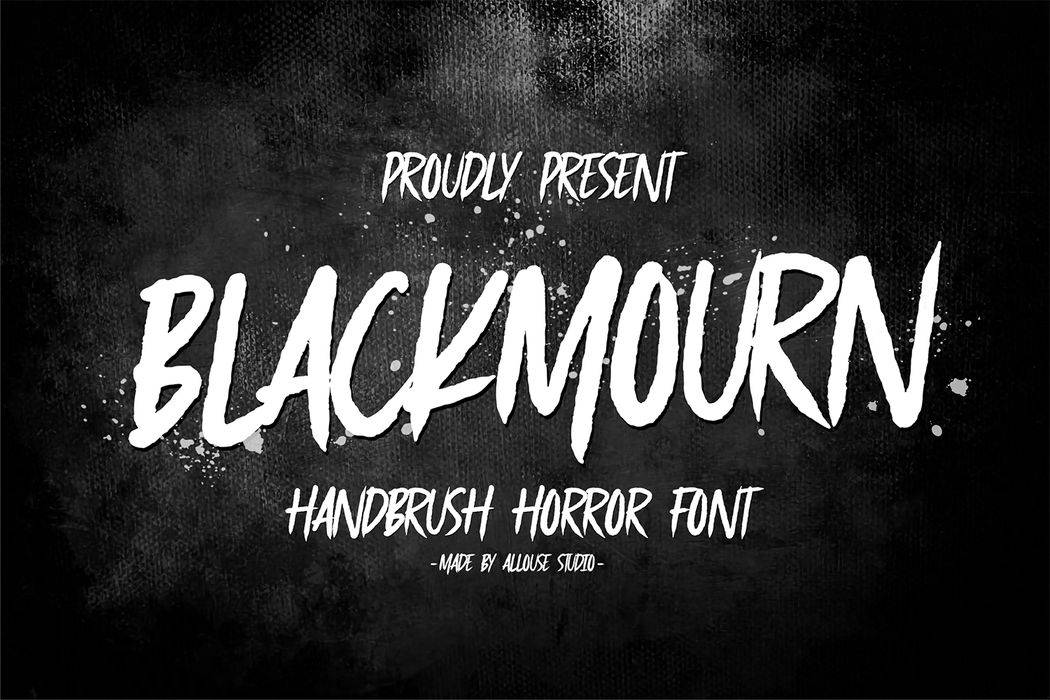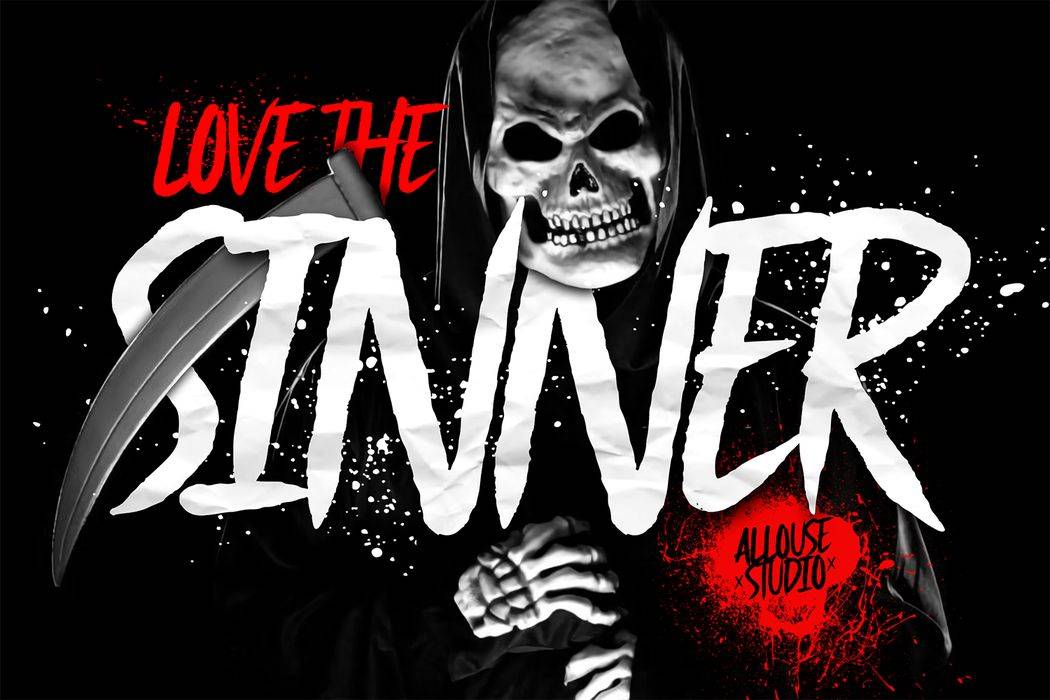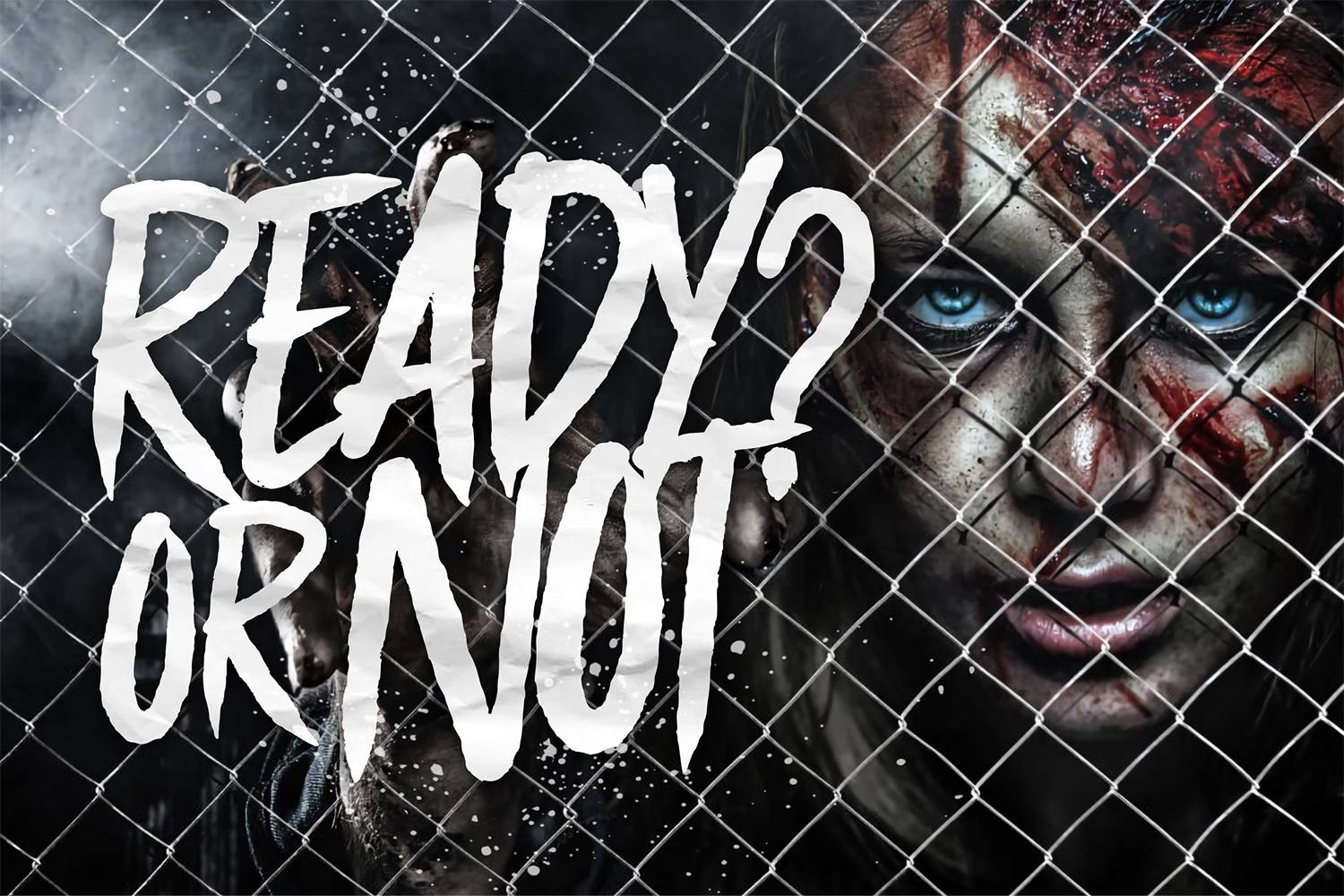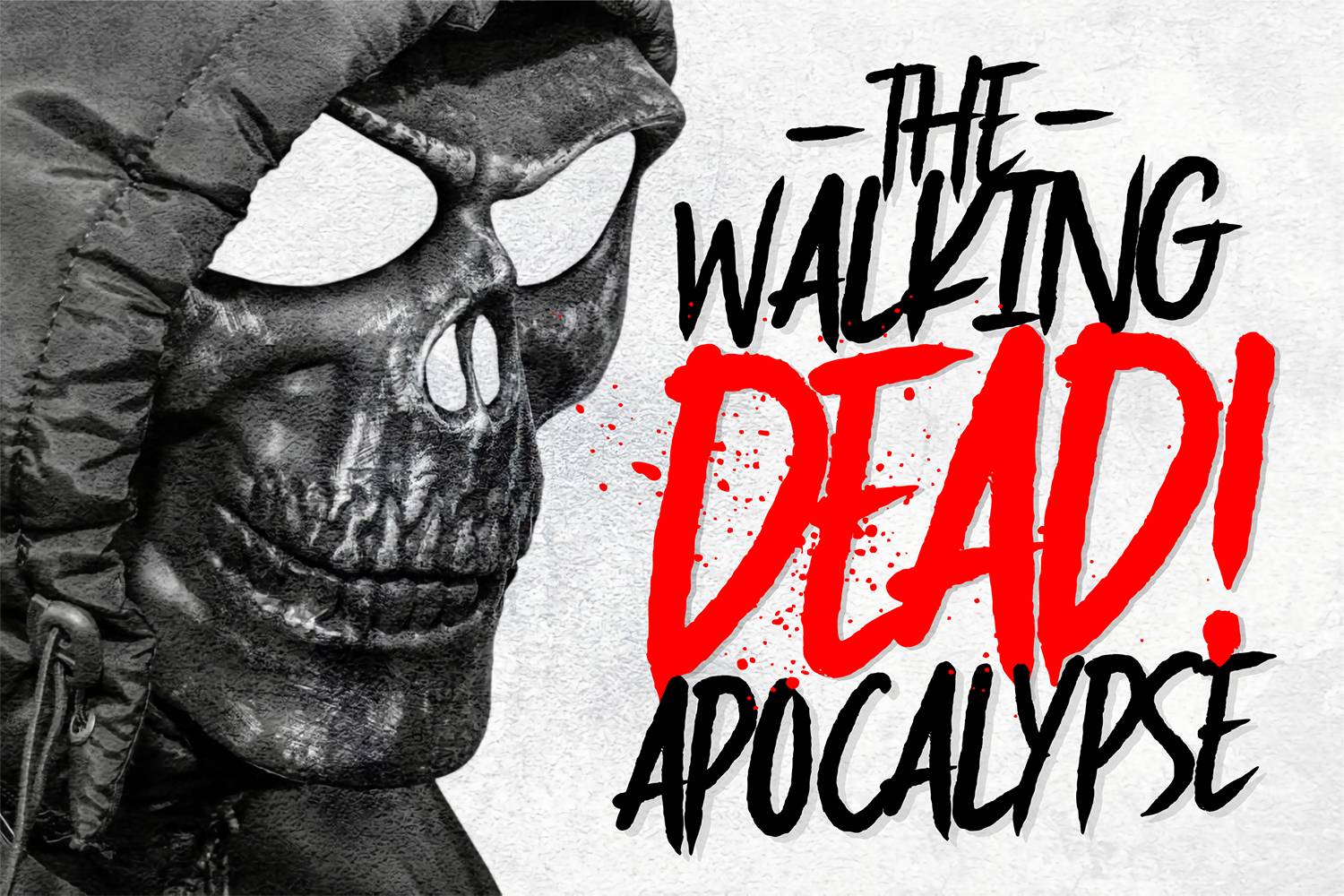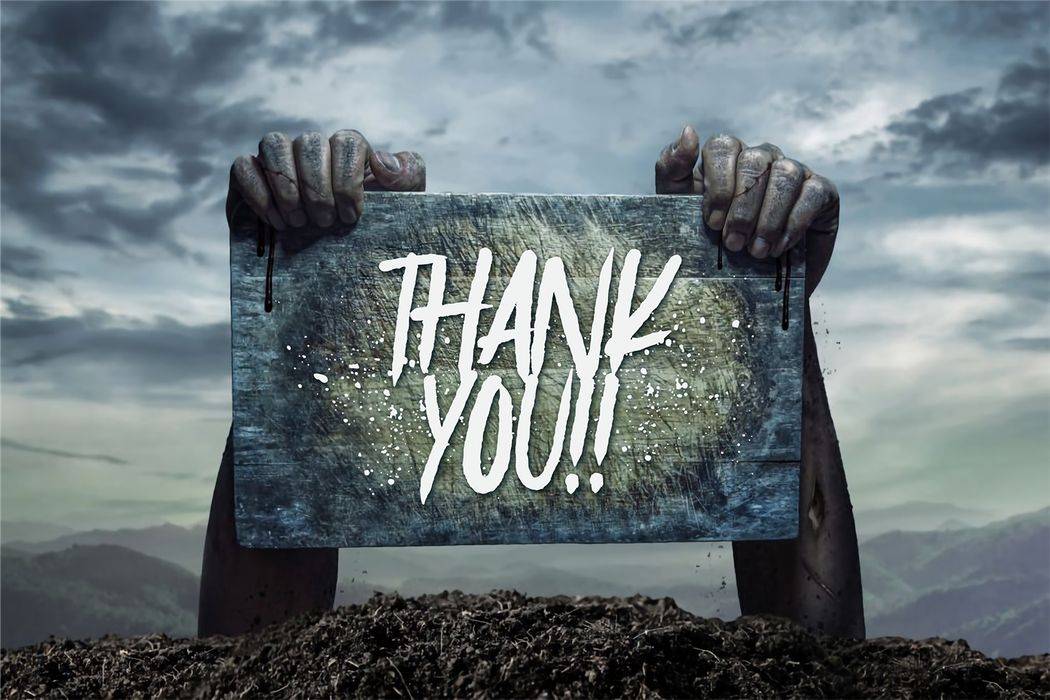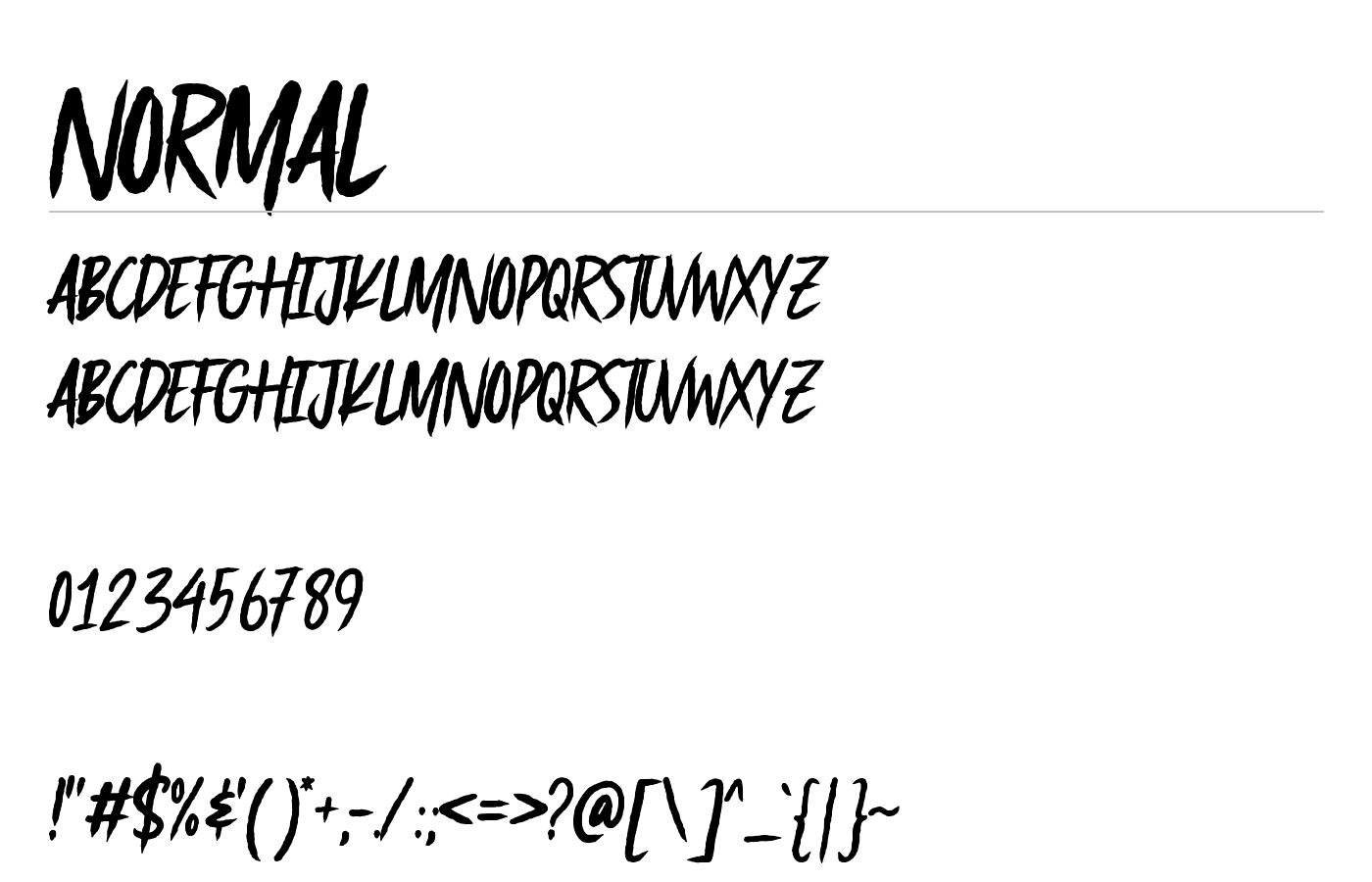
Blackmourn is a bold, expressive handwritten font that delivers an energetic and somewhat edgy appearance. With its irregular strokes and rough brush-like texture, it feels dynamic and raw, perfect for designs seeking a rebellious or creative vibe. This font works especially well for headlines, posters, and branding where a strong, personal touch is needed to grab attention and convey individuality.
Blackmourn Font
About Blackmourn Font
| Font family | Blackmourn Font |